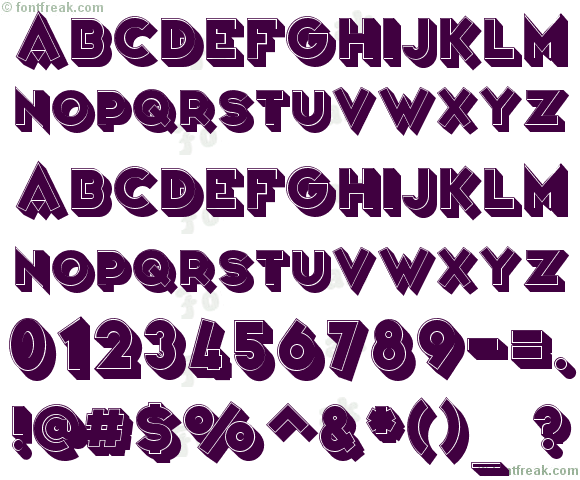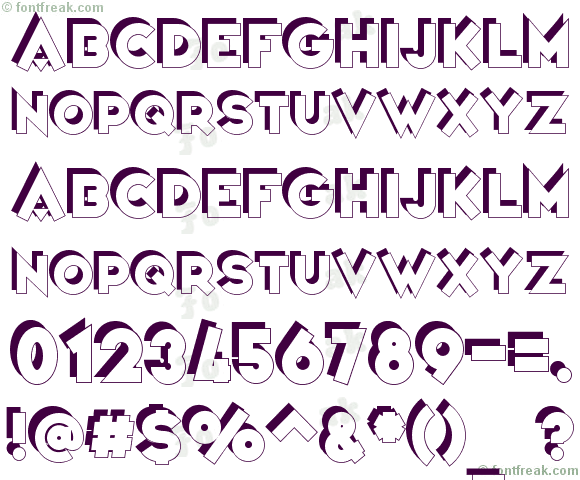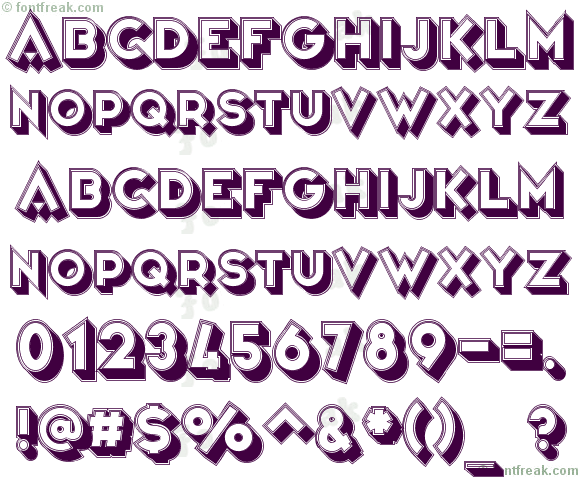
Varieté Theatre
Varieté Mirage
Varieté Artist
Varieté Cascadeur
Varieté Cirque
Varieté Folies
Varieté Scala
Varieté Casino
Barnroof
Varieté
Varieté Conférencier
Varieté Revue
Varieté Jongleur
Varieté Ikarier
Varieté Cabaret
Varieté Colege
About Variete
Variete, designed by Peter Wiegel, is a captivating display font that falls within the category of decorative typefaces. Its unique visual characteristics include a bold stroke weight and playful forms that exude a lively, theatrical feel. The font features a mix of sharp angles and rounded edges, creating a harmonious blend that draws the eye. The ample spacing between the letters adds to its legibility, making it suitable for both large headlines and smaller text applications.